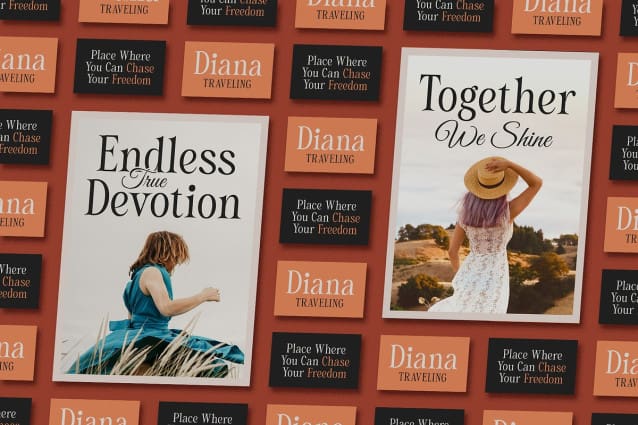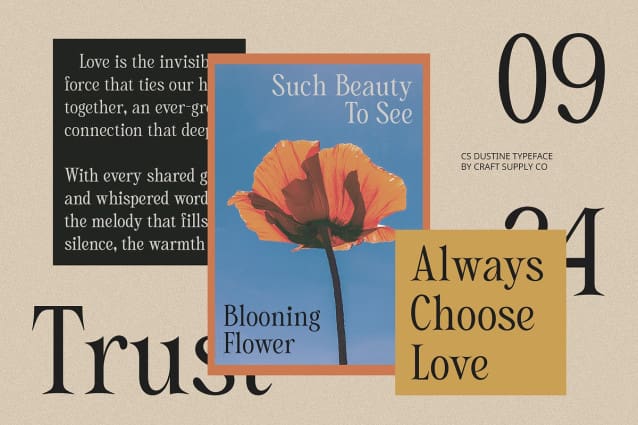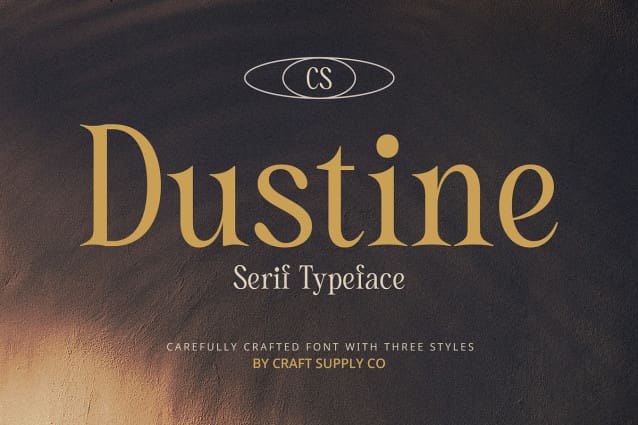
CS Dustine Font
CS Dustine Font is a retro elegant serif font that beautifully combines classic design elements with captivating vintage touches. Its clean lines and fine details evoke a sense of nostalgia while ensuring relevance in modern designs, making it a versatile addition to any creative project.
Nostalgic Aesthetics for Modern Applications With sharp serifs and balanced proportions, CS Dustine is perfect for a wide range of applications, from branding to formal invitations. Its nostalgic aesthetic provides a unique charm, seamlessly fitting into contemporary layouts while maintaining its vintage roots.
Sophisticated Appeal for Luxury Projects The elegance exuded by CS Dustine adds a layer of sophistication, making it an excellent choice for projects aiming to convey luxury and timeless style. Whether used in high-end branding or stylish print materials, this font captures attention and elevates the overall design.
Versatile for Diverse Creative Endeavors Ideal for wedding invitations, editorial layouts, and upscale marketing materials, CS Dustine offers versatility without sacrificing its distinctive character. It provides designers with a tool to express elegance and creativity, ensuring that every project leaves a lasting impression.